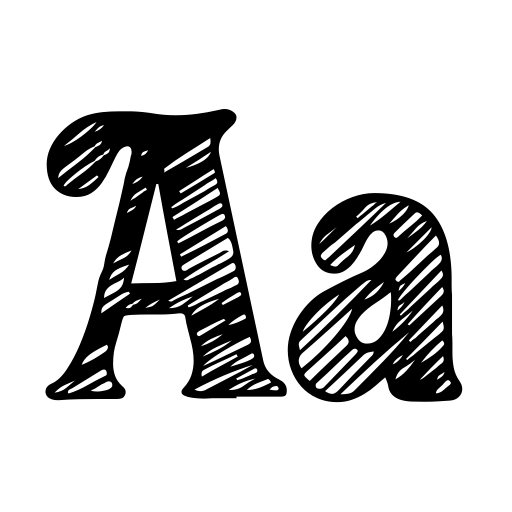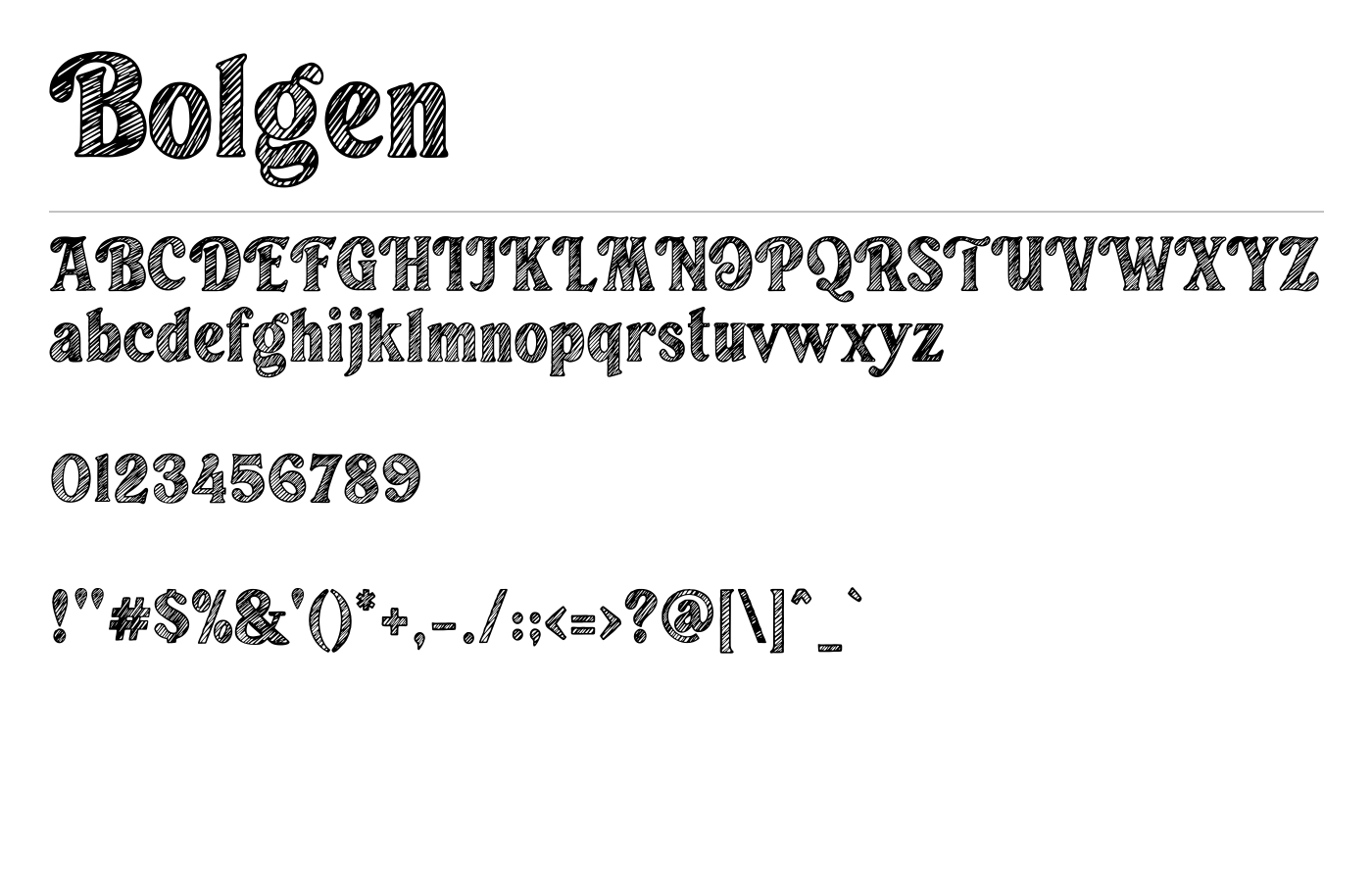
Bolgen is a bold, decorative slab serif font with a distinctive hand-drawn, sketch-like texture that gives it a playful and creative vibe. Its strong, condensed letterforms combine vintage charm with a casual, artistic feel, making it ideal for eye-catching headlines, posters, and branding that seeks a unique, handcrafted look. This font works well where personality and visual interest are key, especially in creative or quirky design projects.
Bolgen Font
About Bolgen Font